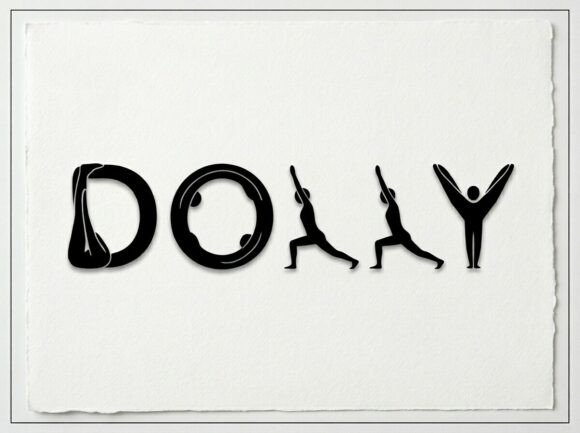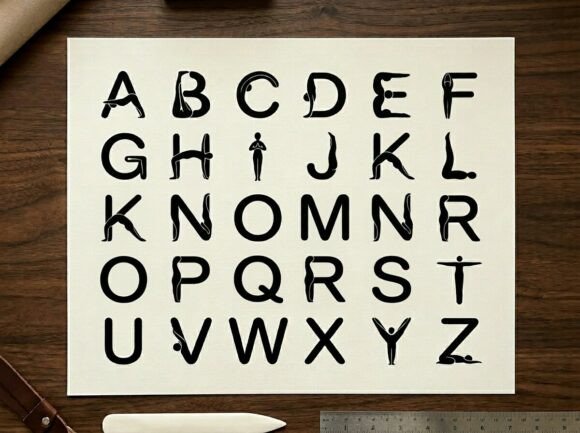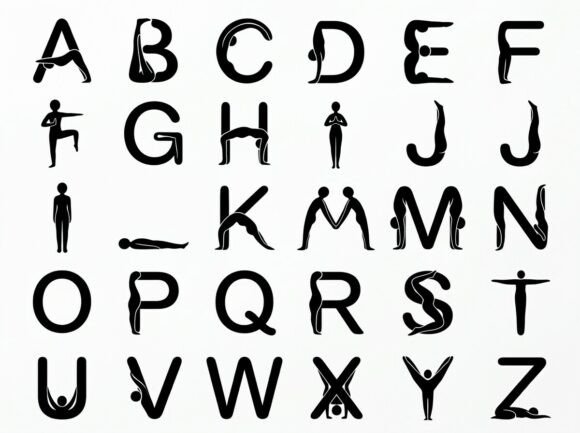
Find Your Creative Balance with Dolly Font: Where Typography Meets Movement
In the world of typography, few fonts have managed to capture the essence of movement and flexibility as elegantly as Dolly Font. This unique display font is an innovative blend of art and typography, where each letterform is meticulously crafted from human silhouettes in various yoga and athletic poses. The result is a visually striking typeface that not only celebrates the beauty of the human form but also embodies a sense of organic tranquility and mindful sophistication.
The Inspiration Behind Dolly Font
Dolly Font is more than just a typeface; it’s a form of artistic expression that seeks to capture the harmony and balance inherent in human movement. The font’s creator aimed to bridge the gap between typography and the dynamic poses of yoga and athletics, bringing forth a design that is both minimalist and profoundly expressive. Each glyph in Dolly Font is a testament to the strength, flexibility, and serene beauty of the human body in motion.
Key Features of Dolly Font
- Unique Letterforms: Constructed from human silhouettes in various poses, offering a fresh and dynamic look.
- Minimalist Design: Despite its intricate inspiration, Dolly boasts a clean and peaceful aesthetic, making it versatile for various design applications.
- Celebration of Human Form: Each glyph is a tribute to the flexibility, strength, and beauty of the human body.
- Versatile Applications: Ideal for wellness branding, yoga studio logos, fitness apparel packaging, and lifestyle editorial headers.
Applications of Dolly Font
Dolly Font’s distinctive style lends itself to a variety of creative projects, particularly those that seek to convey a sense of well-being, activity, and mindful living. Here are some of the ideal applications for Dolly Font:
Wellness Branding
For brands focused on holistic health and wellness, Dolly Font offers a typographic solution that instantly communicates a sense of tranquility and natural balance. Its unique design can help a brand stand out in the wellness industry, conveying a message of harmony and organic living.
Yoga Studio Logos
A yoga studio’s logo is often the first point of contact with potential clients, and it should reflect the studio’s ethos and atmosphere. Dolly Font, with its yoga-inspired silhouettes, is perfectly suited for yoga studio logos, promising a serene and mindful practice.
Fitness Apparel Packaging
In the competitive world of fitness apparel, packaging can be a powerful tool for brand differentiation. Dolly Font brings a touch of elegance and dynamism to fitness apparel packaging, suggesting not just physical activity but also a mindful approach to fitness.
Lifestyle Editorial Headers
For editorial content focusing on lifestyle, health, and wellness, Dolly Font can add a visually appealing and thematic touch to headers and titles. Its unique aesthetic can enhance the reader’s experience, making the content more engaging and inviting.
Why Choose Dolly Font?
Dolly Font stands out in the vast sea of typefaces due to its distinctive blend of typography and movement. Here are a few reasons why designers and crafters might prefer Dolly:
- Unique Aesthetic: Offers a fresh perspective on typography, ideal for projects requiring a standout design.
- Versatility: Can be used across a range of applications, from branding to editorial design.
- Emotional Connection: Creates an immediate connection with audiences interested in wellness, yoga, and mindful living.
| Author | mail.skygroup |
Dolly Font is a remarkable addition to the world of typography, offering a creative and balanced approach to design. Its innovative construction from human silhouettes in motion brings a unique aesthetic that can elevate a wide range of projects. Whether you’re a designer looking for a distinctive font for a wellness brand, a yoga studio, or any project that embodies movement and mindfulness, Dolly Font is an exceptional choice. With Dolly, you can find your creative balance and bring a sense of organic tranquility and mindful sophistication to your designs.